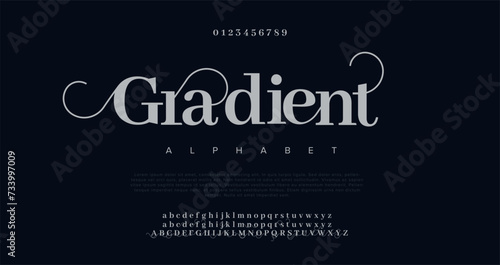
Gradient Elegant alphabet letters font and number. Classic Lettering Minimal Fashion Designs. Typography modern serif fonts regular uppercase lowercase and numbers. vector illustration